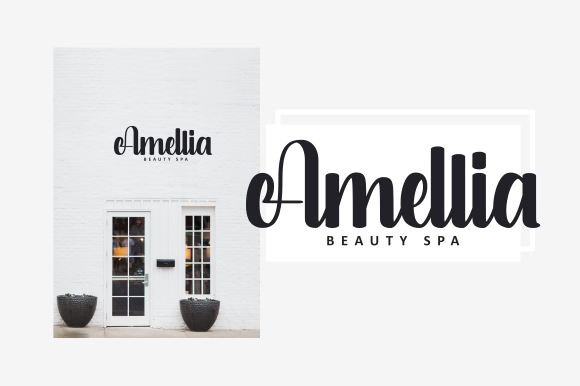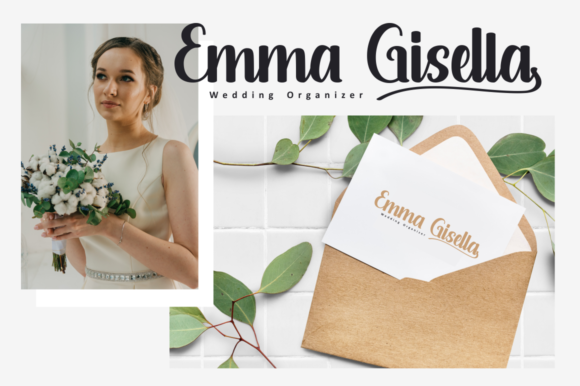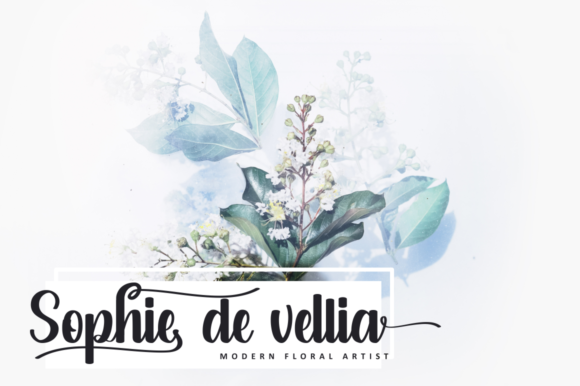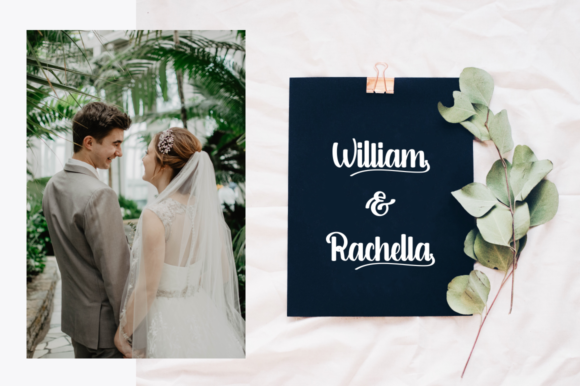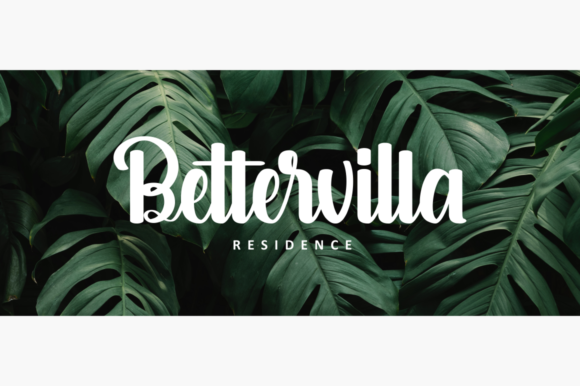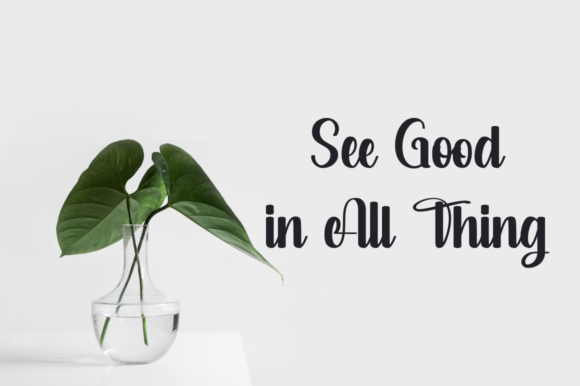
Introduction to Salsabella Font
As a designer, there’s nothing quite like that moment when you stumble upon the perfect font for your project. It’s like finding a missing puzzle piece – everything falls into place, and your creative vision starts to take shape. For many of us, that moment came when we discovered the Salsabella Font.
This modern and cute font has won the hearts of designers worldwide with its unique characters, playful charm, and high-quality design. With its transparent background, Salsabella Font is perfect for any creative project that requires a touch of elegance and sophistication. Whether you’re working on a branding project, a website, or a social media campaign, this versatile font is sure to elevate your design to the next level.
Key Features of Salsabella Font
- High-quality design resource for creative projects, offering a unique and elegant touch.
- Features a transparent background, allowing for easy customization and integration into any design project.
- Perfect for use in logos, branding materials, and other design elements where a sophisticated and modern look is desired.
Honest Review: Salsabella Font
As a designer, I’m always on the lookout for high-quality design resources that can elevate my creative projects. The Salsabella Font has been a recent discovery, and I’m excited to share my honest review.
- Beautiful, elegant script style that’s perfect for wedding invitations, quotes, and other special occasions.
- Only available in a limited range of languages, which might be a drawback for designers working on multilingual projects.
- Not ideal for body text, as it can be quite ornate and difficult to read at small font sizes.
Overall, I’m impressed with the Salsabella Font’s potential to add a touch of elegance to creative projects. While it may have some limitations, its unique style and free download option make it a valuable addition to any designer’s toolkit.
The Salsabella Font is a high-quality design resource that can be used in a variety of creative projects. It features a transparent background, making it easy to incorporate into any design.
The Salsabella Font is commonly used in:
- Graphic design projects, such as brochures and flyers.
- Web design projects, such as website headers and footers.
- Print design projects, such as business cards and invitations.
What makes the Salsabella Font a high-quality design resource?
The Salsabella Font is designed with attention to detail and crafted to provide a high-quality experience for designers. Its clean lines, elegant curves, and precise typography make it an excellent choice for creative projects that require a sophisticated look and feel. With its high-quality design, you can trust that your project will stand out and make a lasting impression.